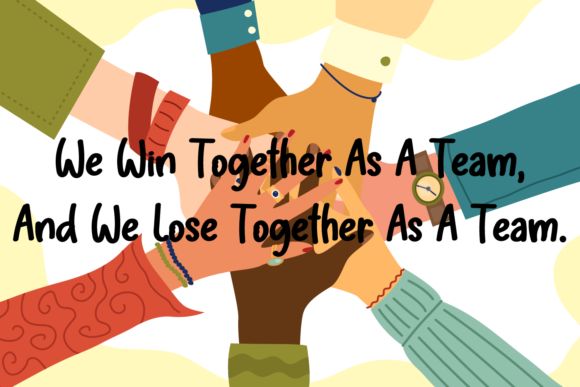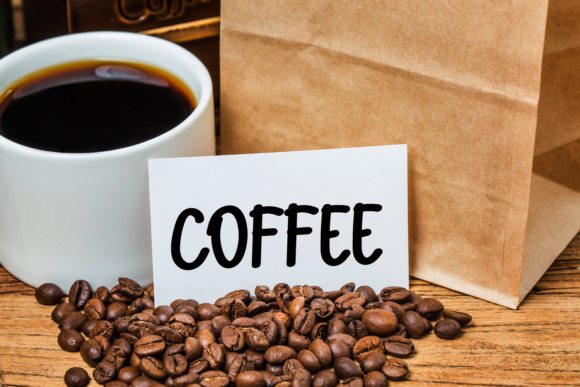
Summer Friendship Font
db-ku.com - Script & Handwritten -- Summer Friendship is a whimsical script font with a relaxed theme, featuring a lovely style. No matter the topic, this font will be an incredible asset to your fonts’ library, as it has the potential to elevate any creation.